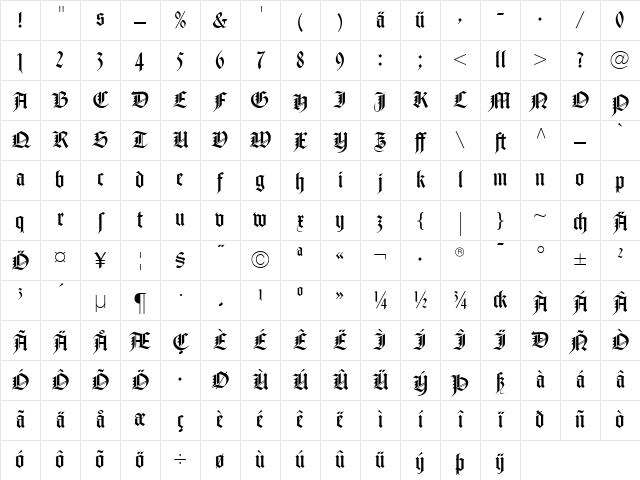
Complete NotreDameRomanDfr Roman glyph index. Displaying only characters natively supported by NotreDameRomanDfr Roman font.
NotreDameRomanDfr is a composed and adaptable typeface that performs quietly and consistently across a wide range of design contexts.